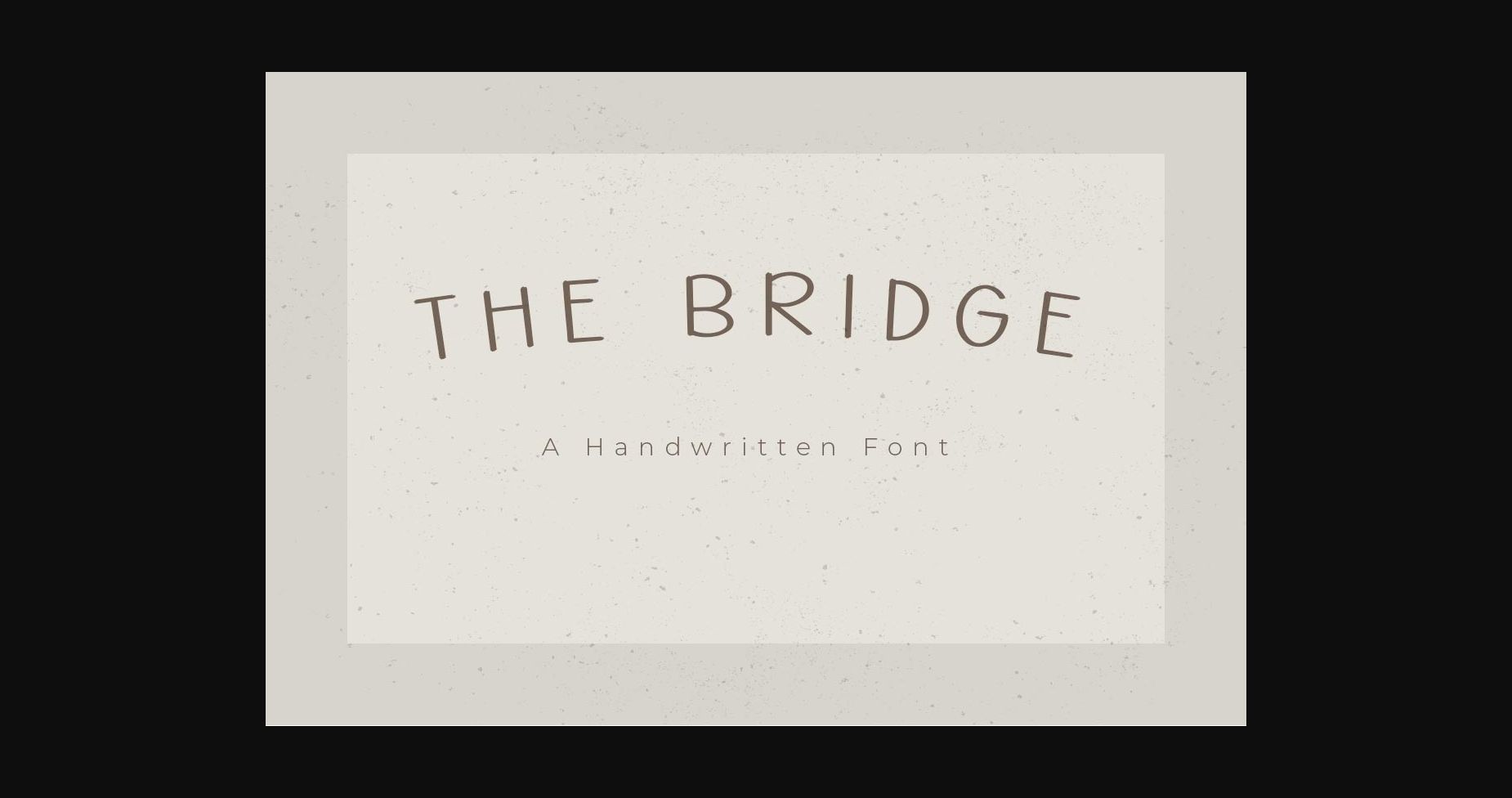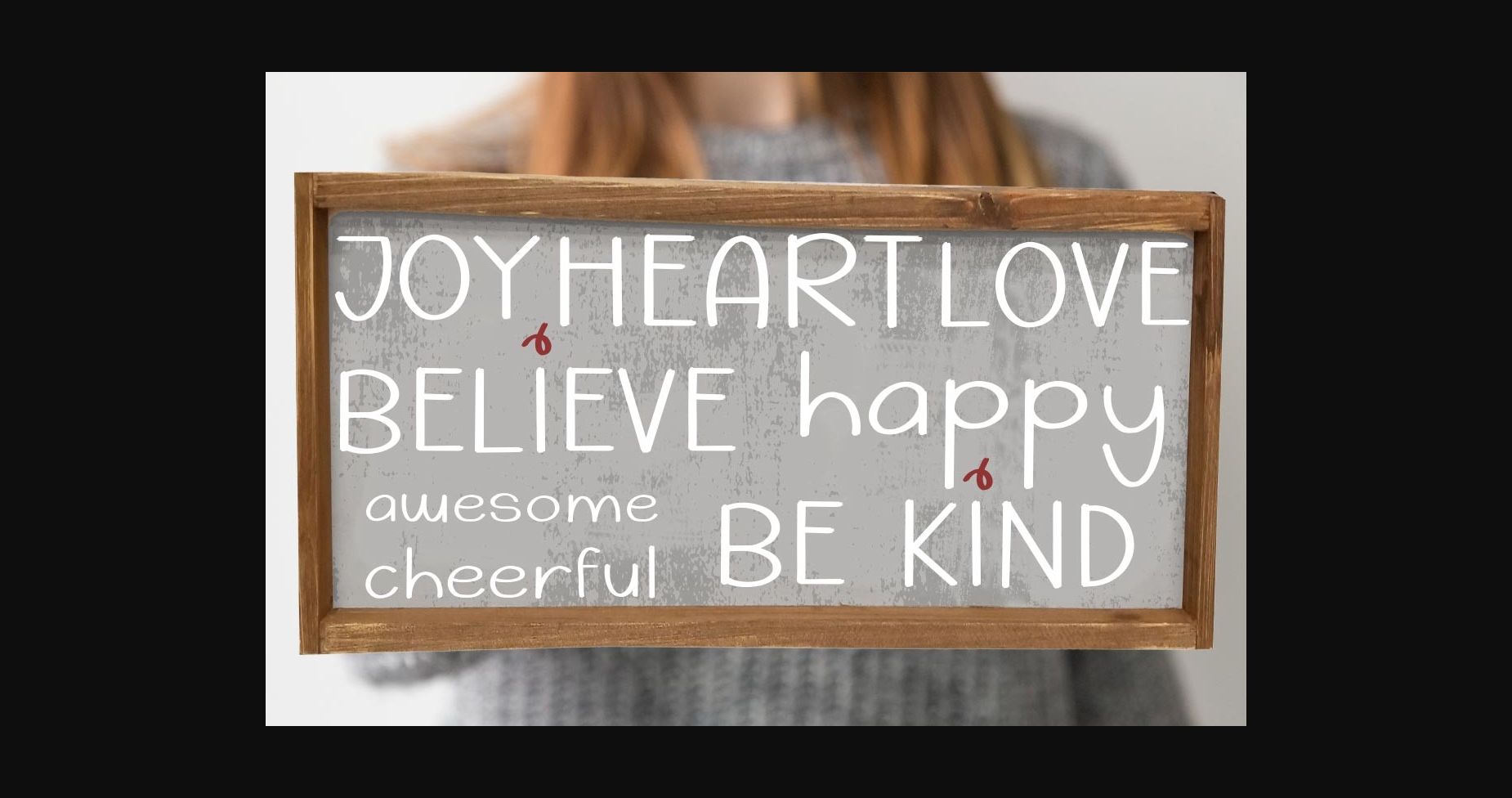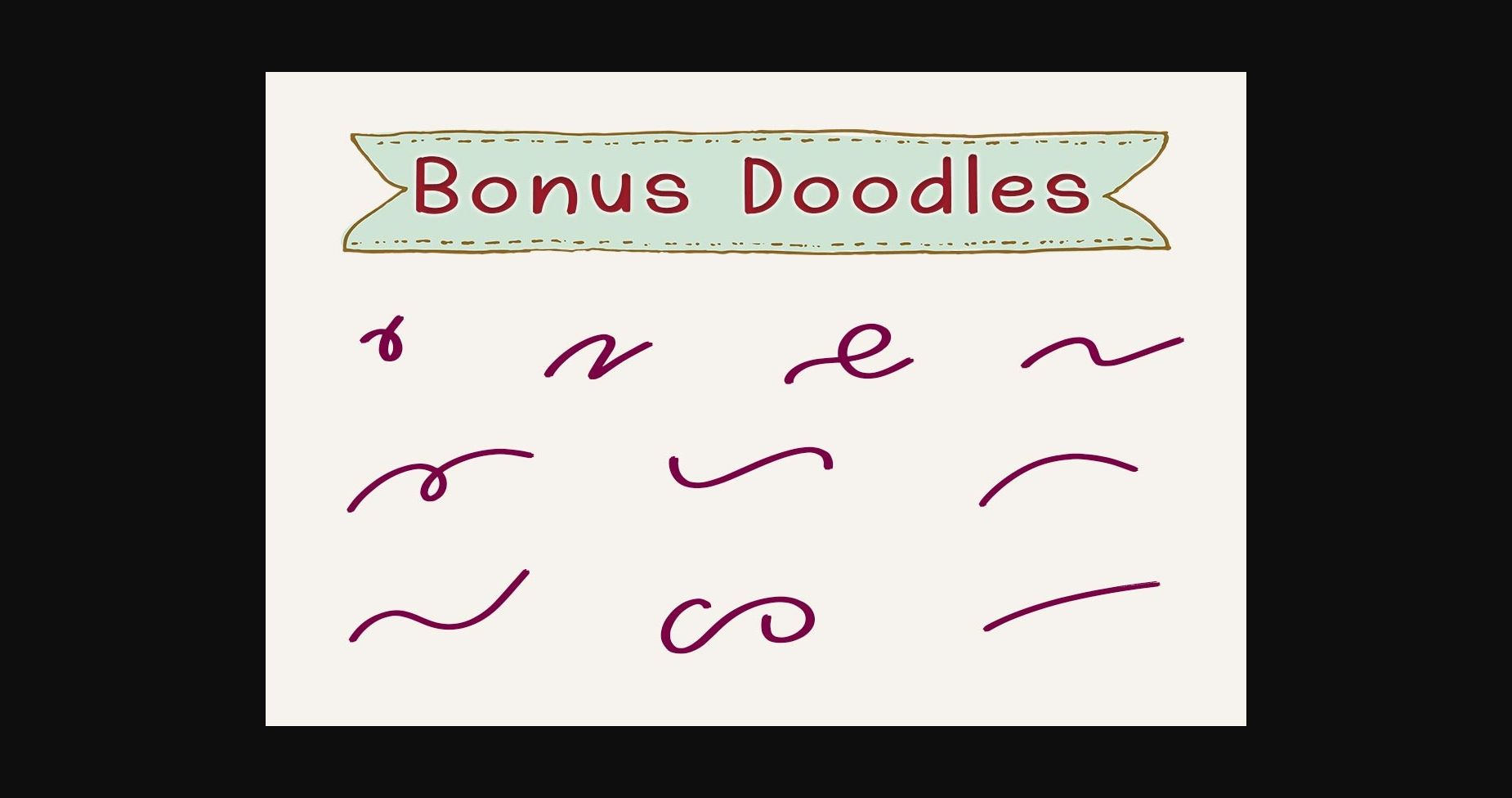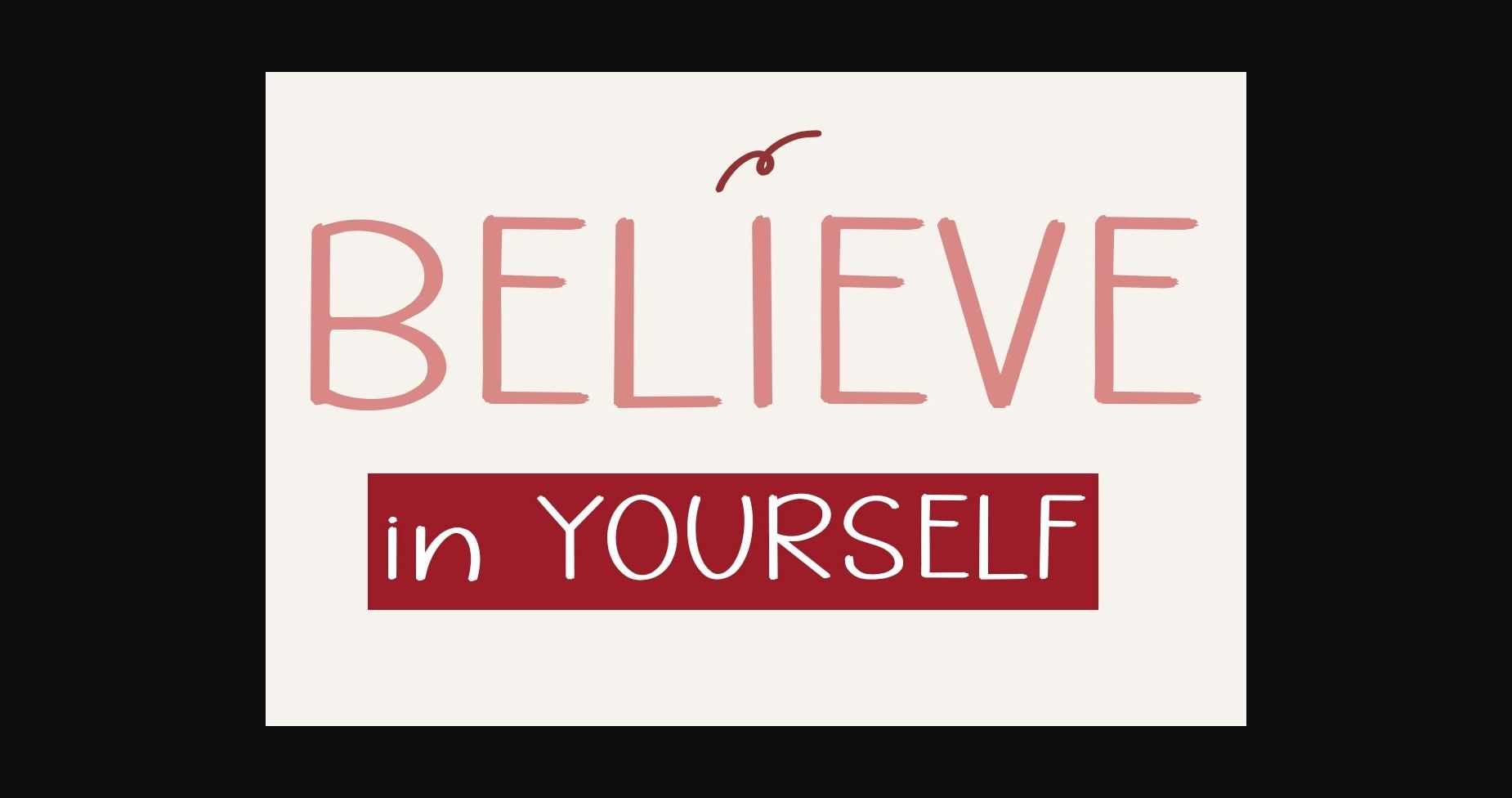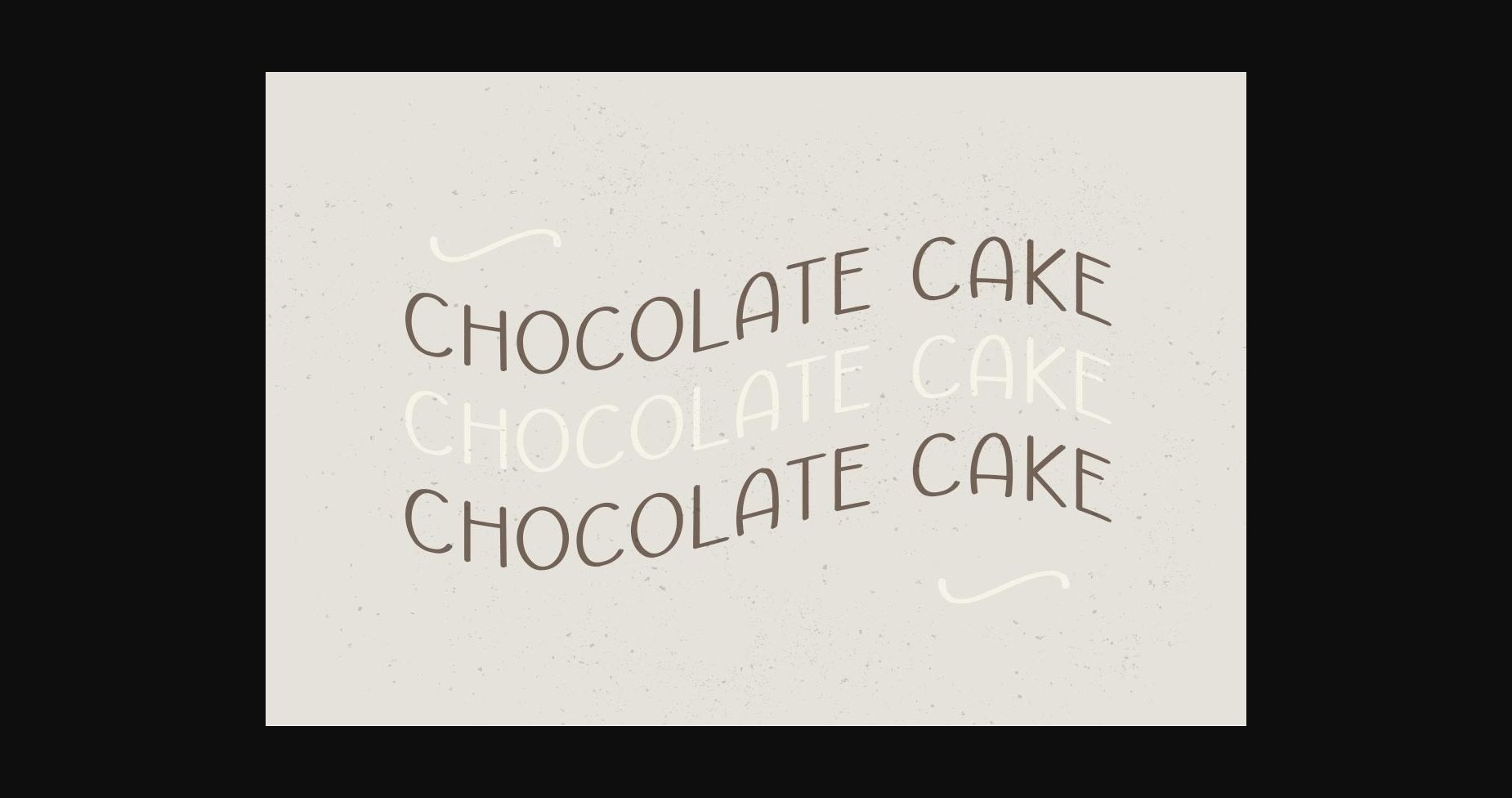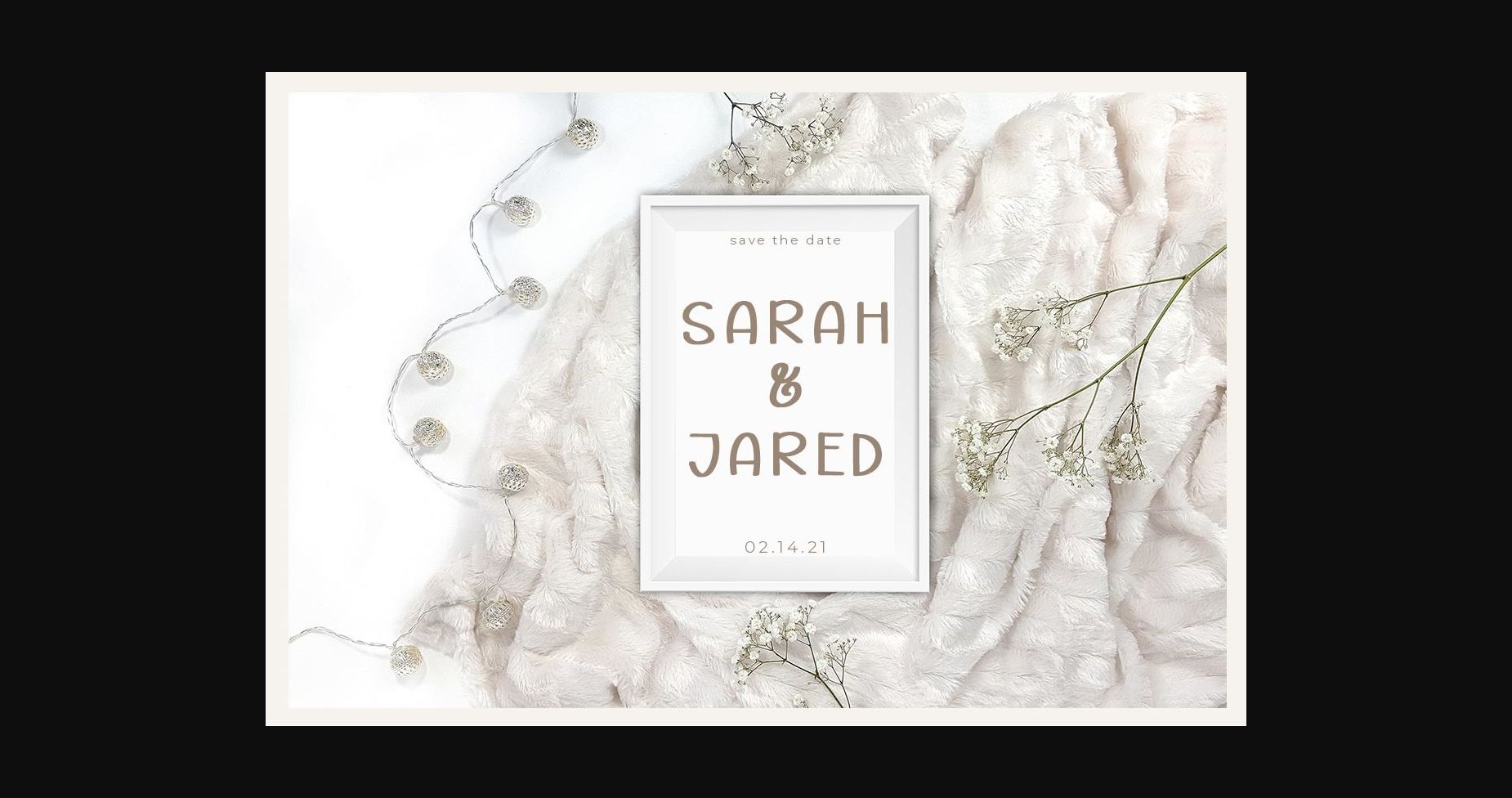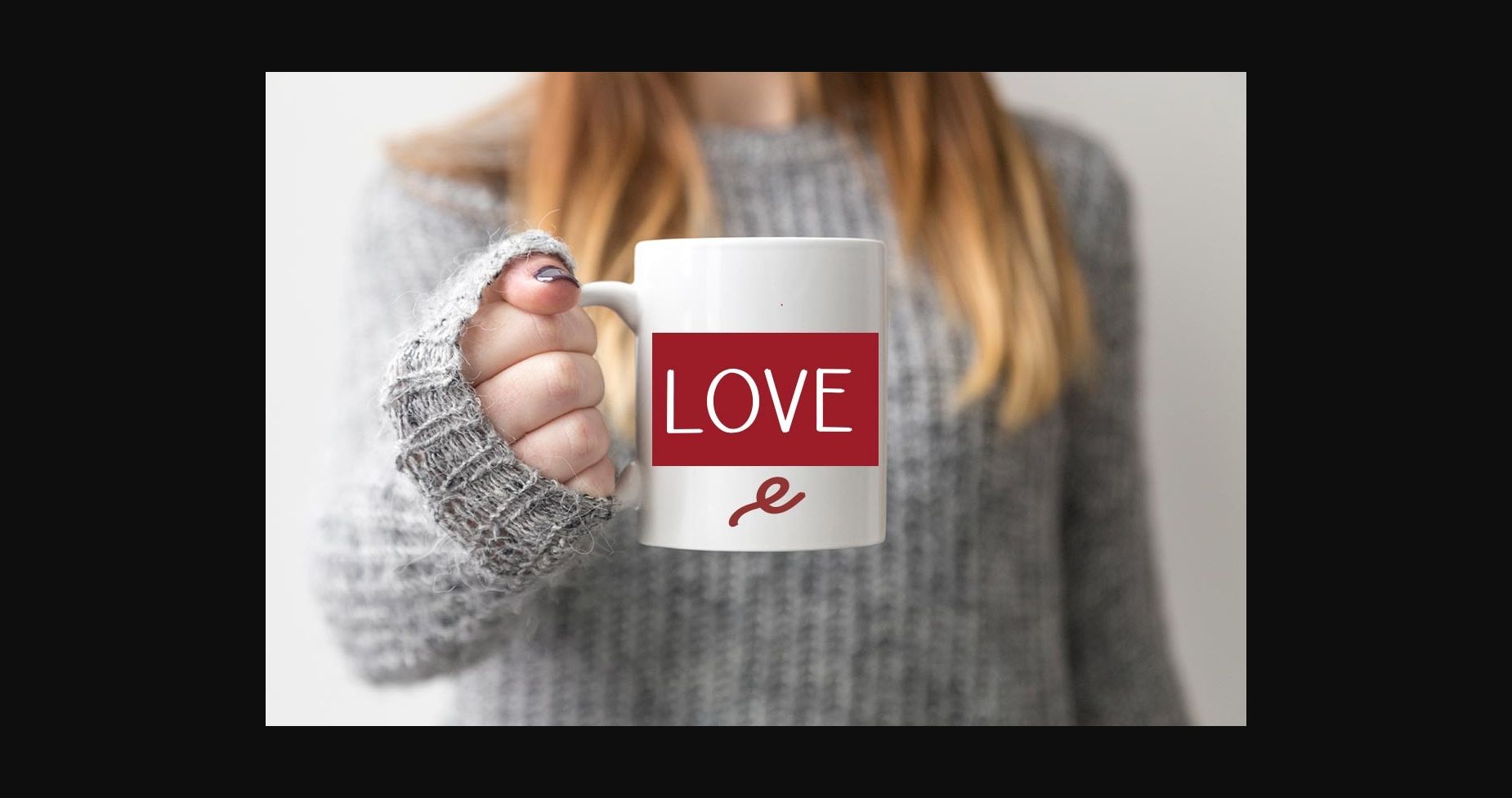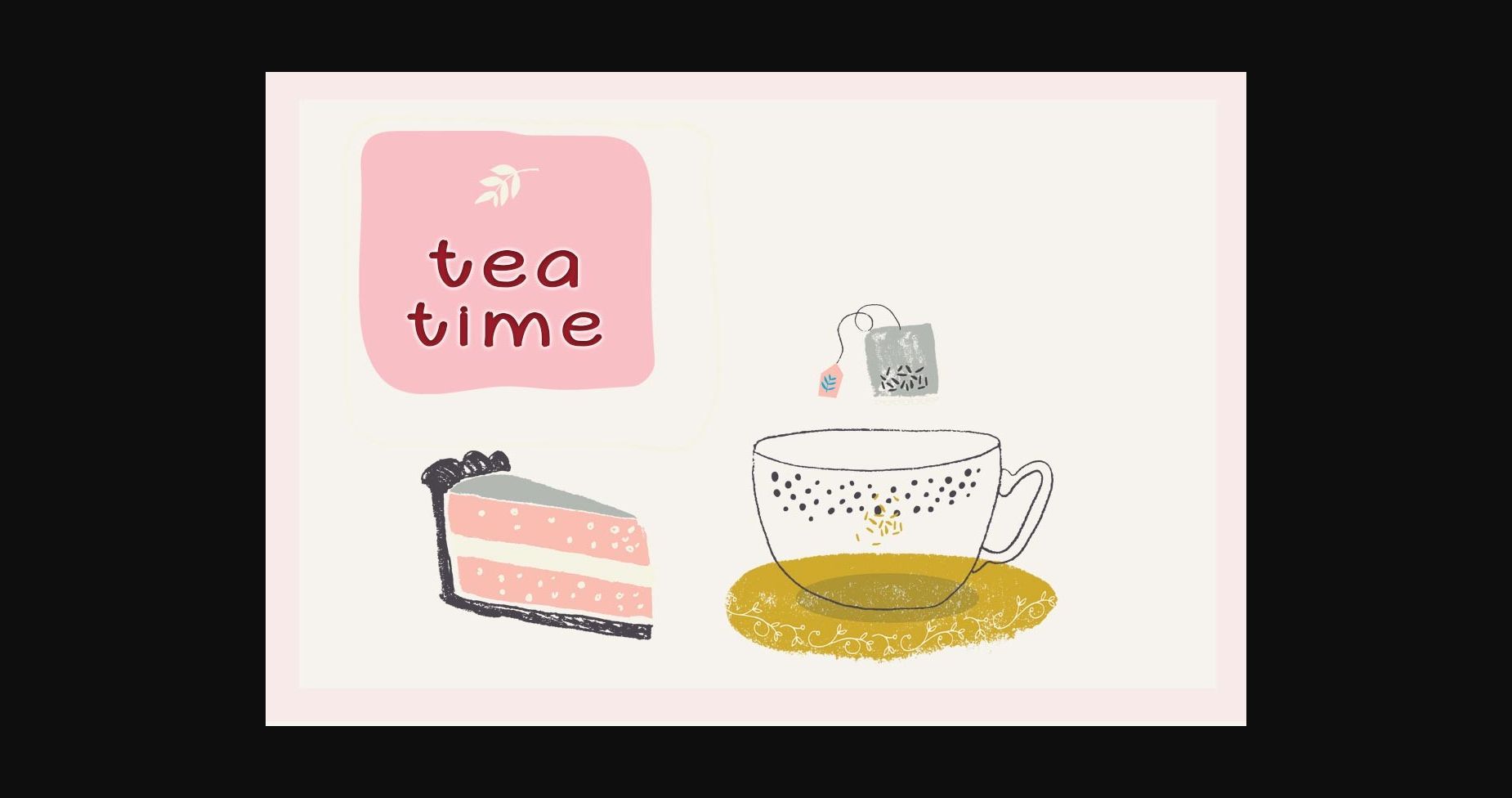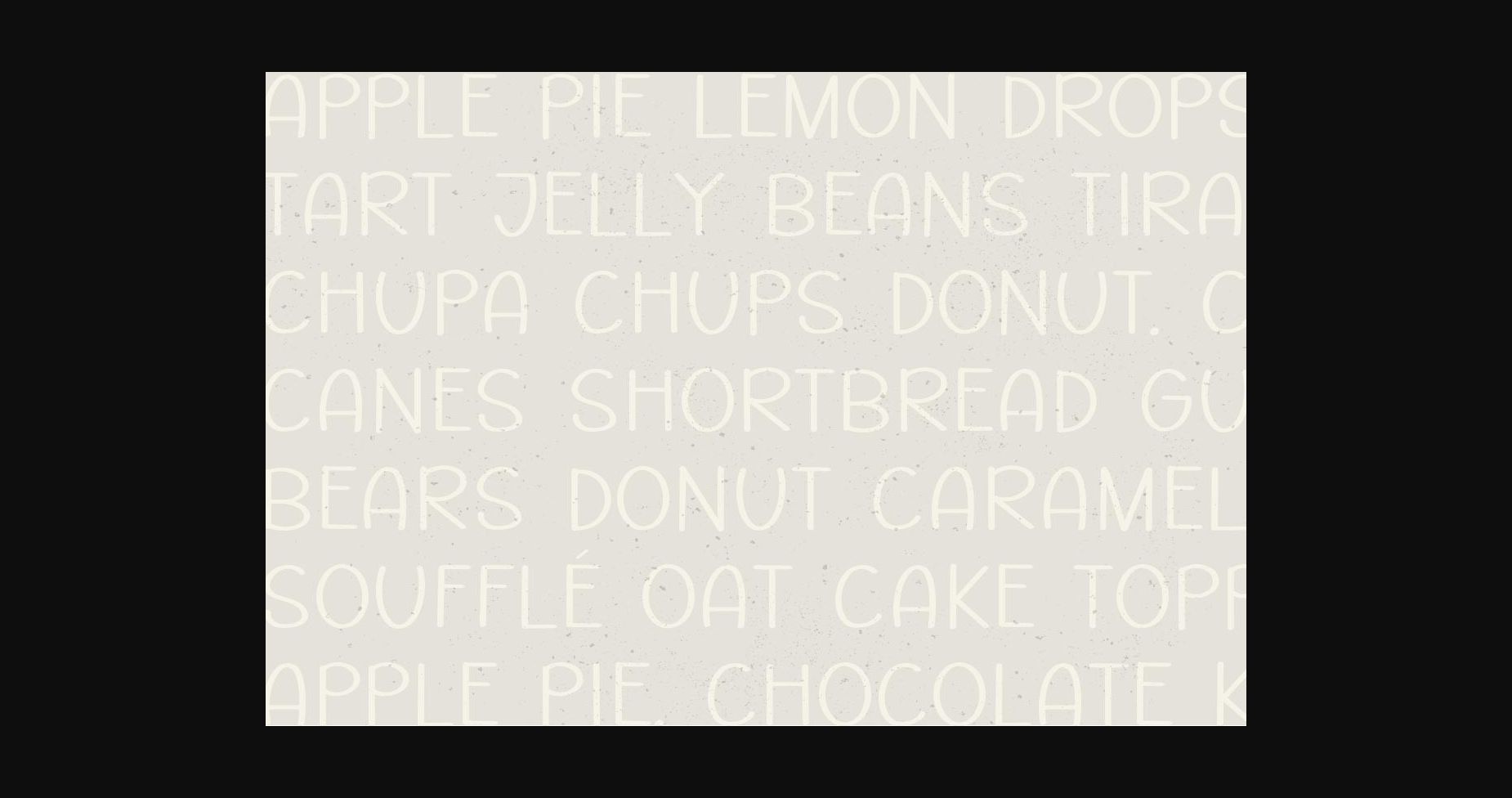
The Bridge is a clean and simple sans serif font. It maintains its classy calligraphic influences while feeling contemporary and fresh. Fall in love with it and bring your projects to the highest levels!